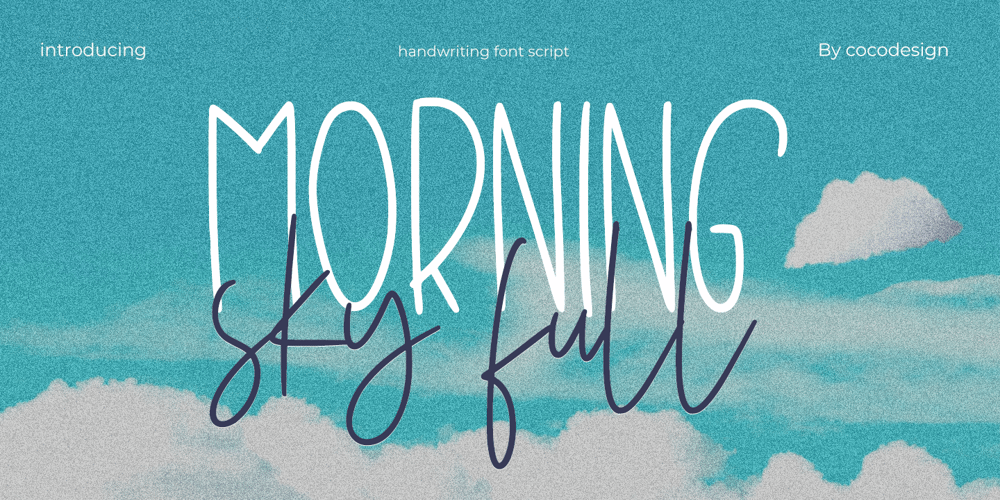
Morning sky full
Morning sky full font
Morning sky full Font Family was designed by Muhammad Zaini and published by Cocodesign. Morning sky full contains 1 styles and family package options. Introducing “Morning sky full”, a delicately thin handwritten font whose beauty lies in its simplicity. Its elegant and streamlined profile can effortlessly uplift any creative project you’re working on. Imbued with a touch of versatility, this enchanting typeface is ready to be an invaluable addition to your font collection, offering the potential to beautifully amplify your designs, regardless of the theme. Embrace the charm of the Morning sky full, and allow your creativity to reach new heights.